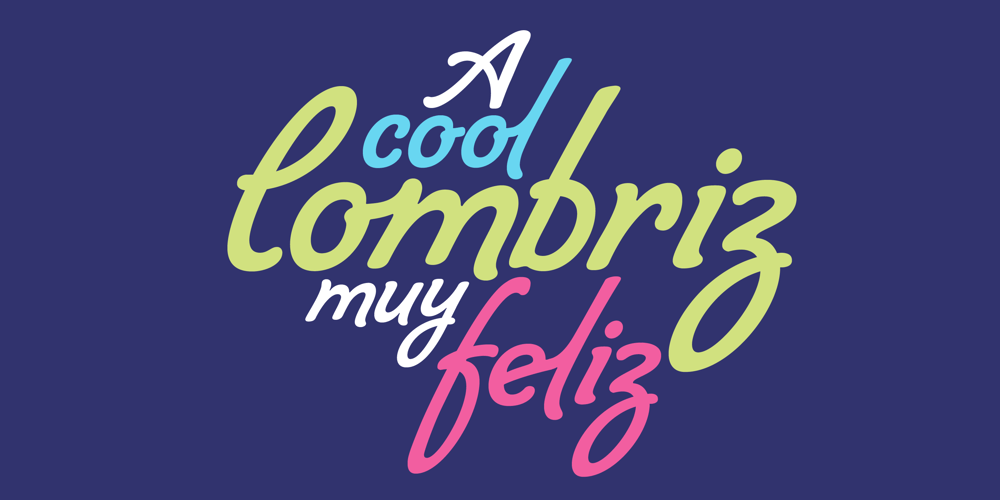
Lombriz
Lombriz font
Lombriz Font Family was designed by Alejandro Paul, Angel Koziupa and published by Sudtipos. Lombriz contains 1 styles and family package options. Lombriz attempts to bridge the gap between different kinds of typography – including packaging, signage, and sporting. The result is a heavy, yet casual, 1950s-inspired semi-connected script. The freestyle Lombriz feels friendlier, more readable, and a touch more ‘real’ than most scripts of its kind. In certain settings, the thickness of the stroke in the capital letters accentuates, while the lowercase flows like casual, brush-drawn letters should. Lombriz comes equipped with more than 50 alternates and custom ligatures. These extras are conveniently tucked into the OpenType version for those programs that support such functionality.